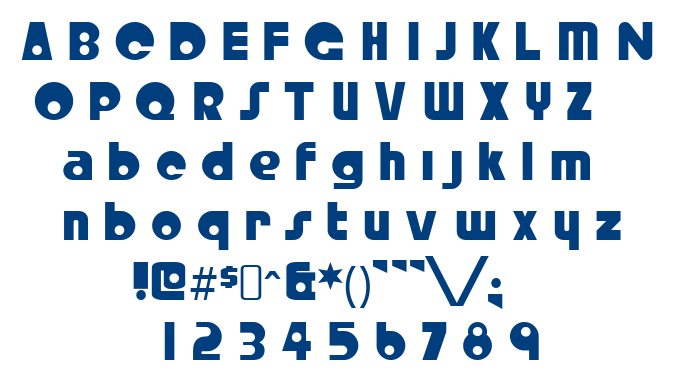
Crystal Radio Kit is a tribute to the typeface famously used for the old Radio Shack logo. Don’t forget to read the files inside the zip for details. Updated in 2012.